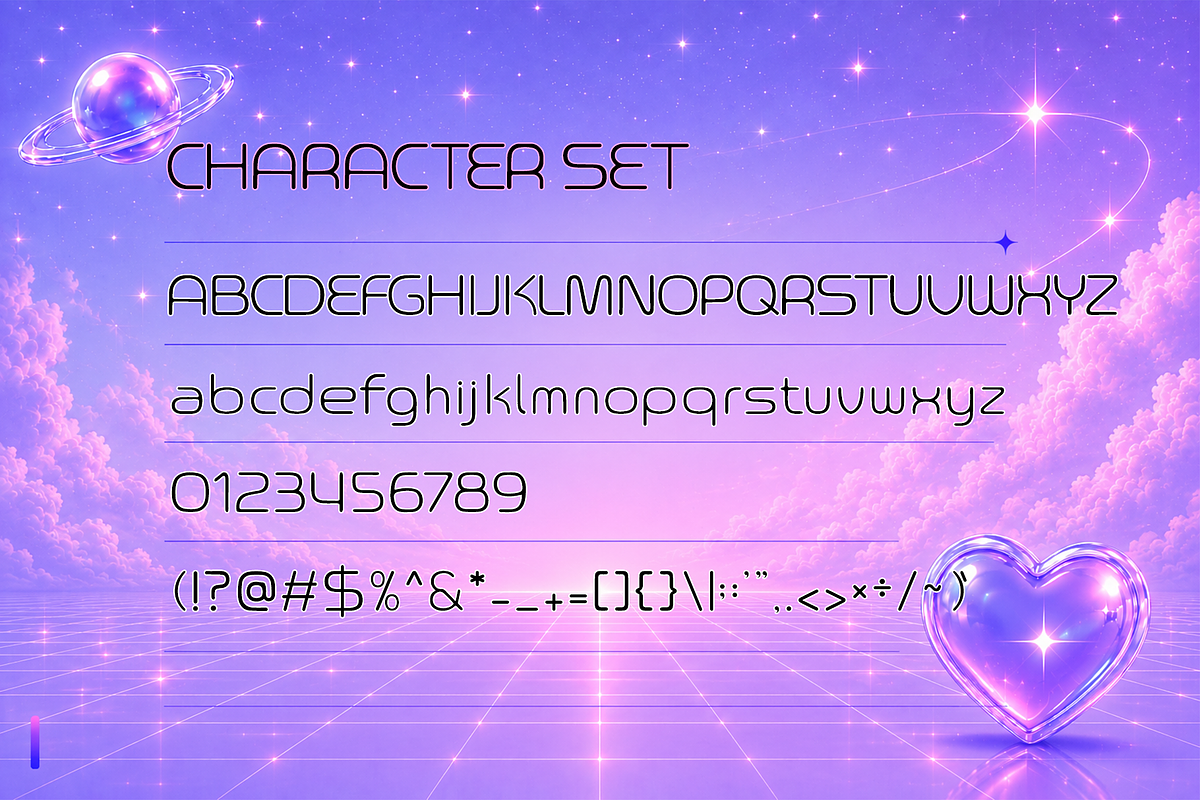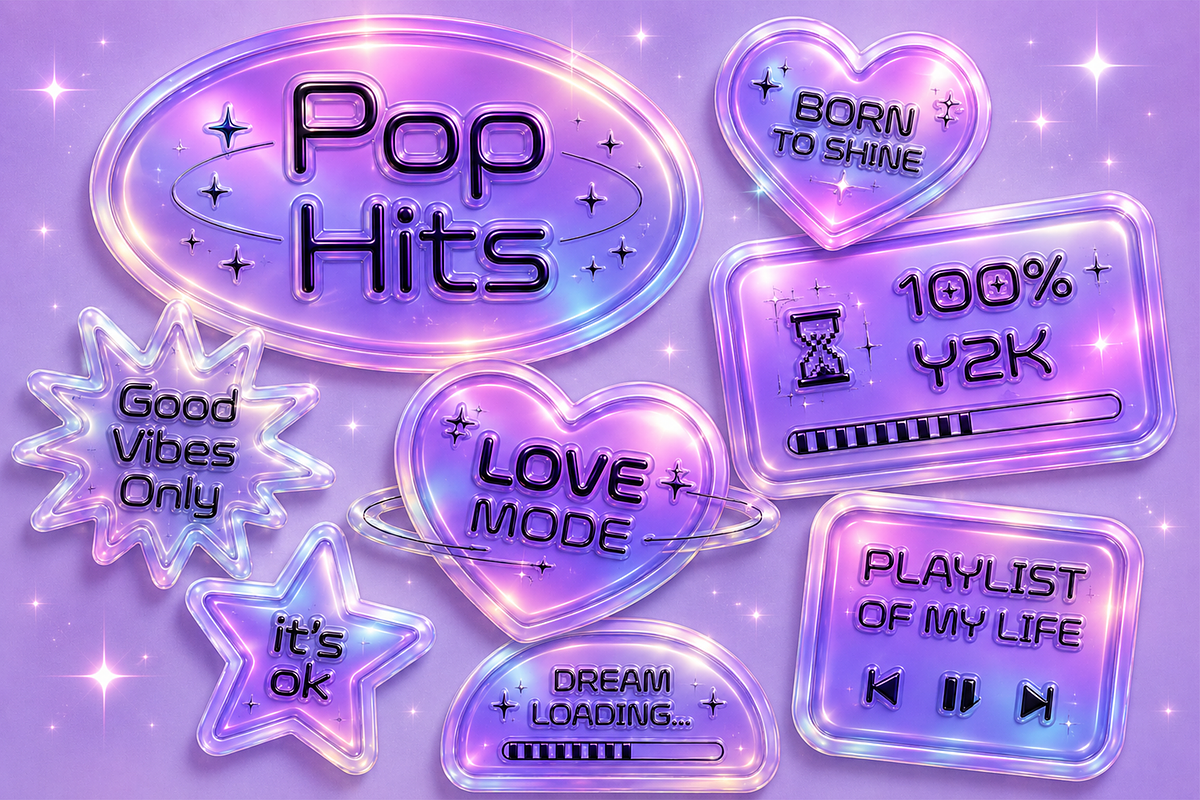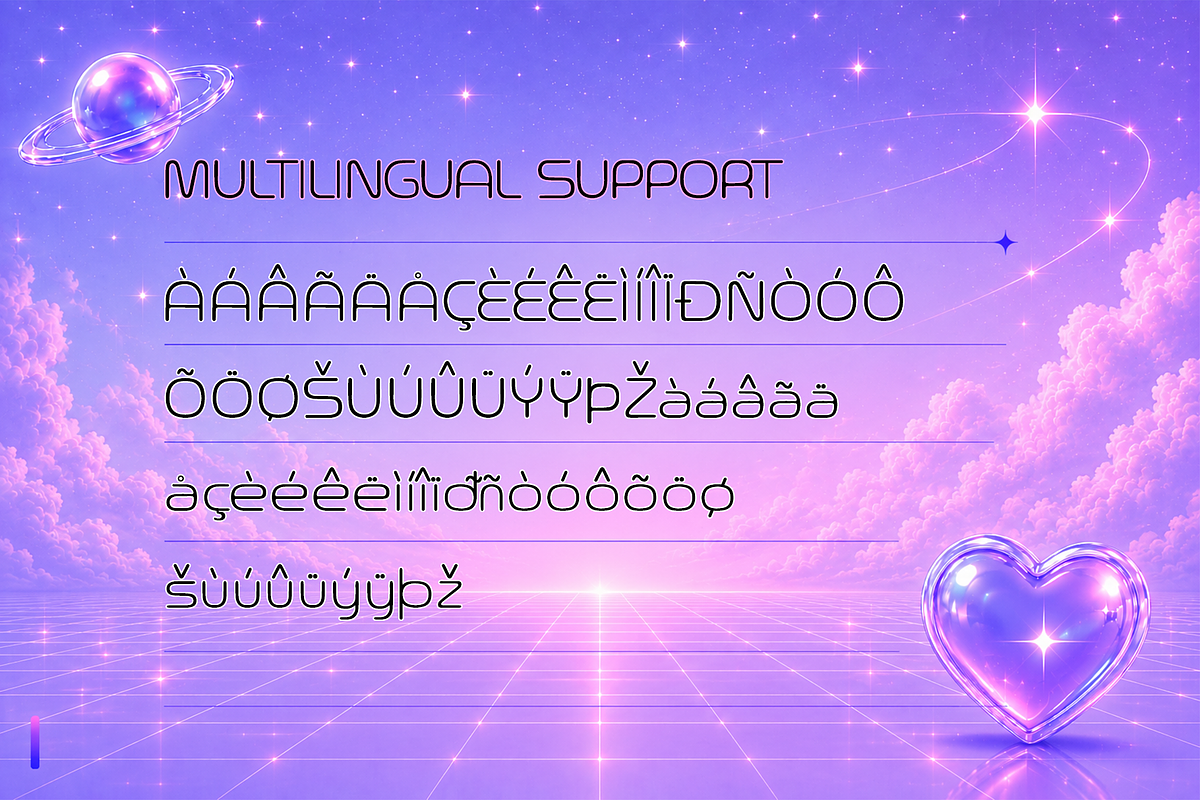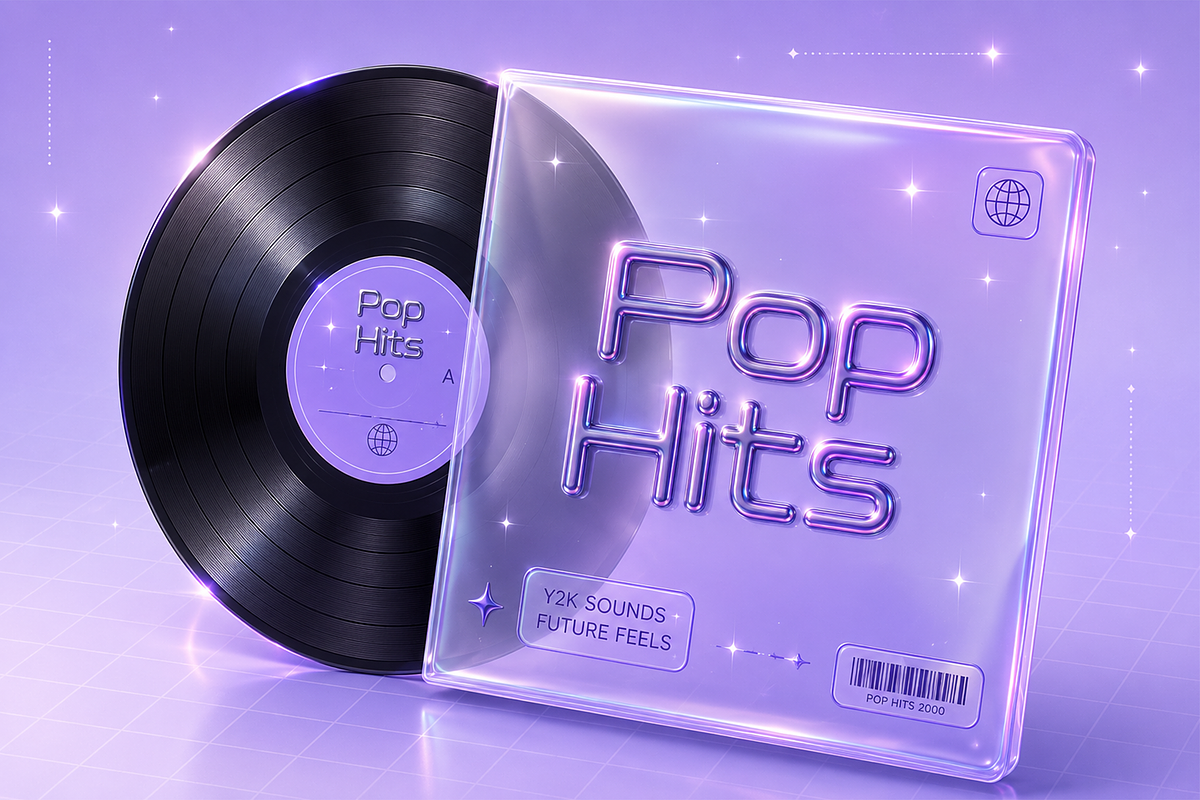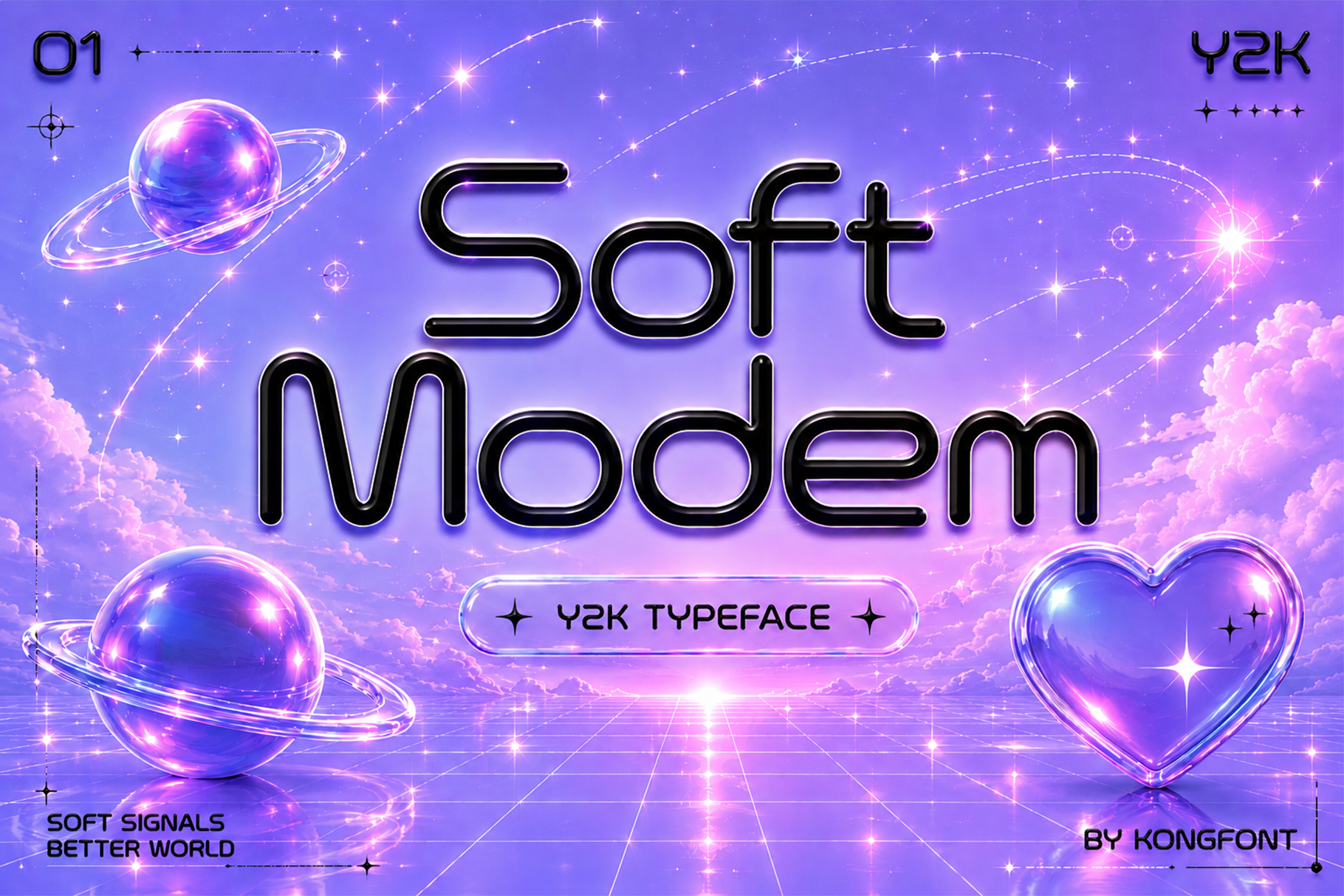
Soft Modem - Modern Display Font
Soft Modem is a modern display font that blends sleek contemporary design with subtle digital inspired aesthetics. Featuring smooth curves, distinctive letterforms, and a clean modern structure, Soft Modem creates a unique visual identity that feels both futuristic and approachable.
Designed for versatility, the font includes uppercase and lowercase letters, numerals, punctuation, and multilingual support, making it suitable for both print and digital applications. Its modern character allows it to adapt effortlessly to creative, tech, lifestyle, and entertainment focused designs.